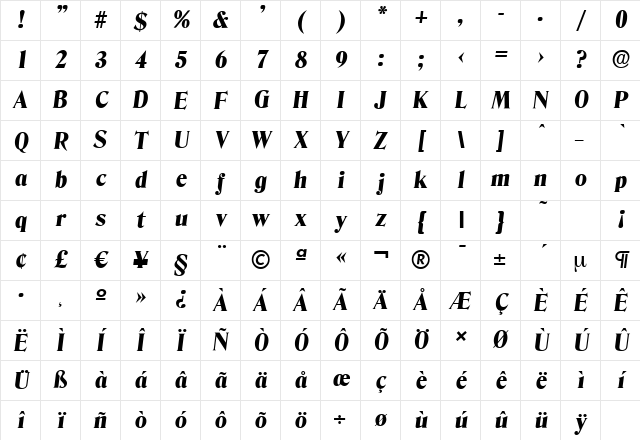
DenverSerial-Heavy Italic
Design Context for DenverSerial-Heavy
DenverSerial-Heavy is a composed and adaptable typeface that performs quietly and consistently across a wide range of design contexts. The slanted form adds forward momentum and visual energy.
Pro Tip: Use DenverSerial-Heavy for emphasis, pull quotes, and subheadings where its slanted energy can add rhythm to the layout.